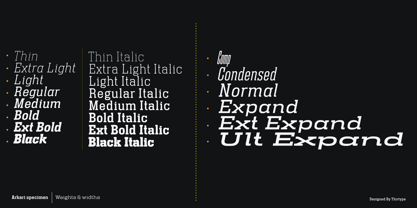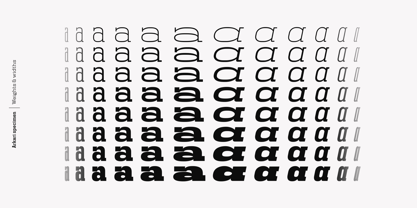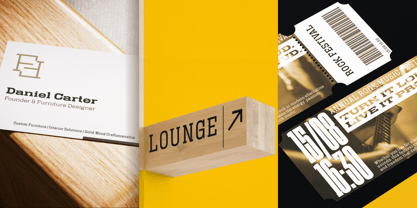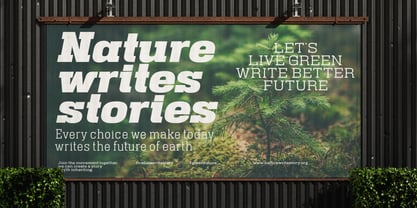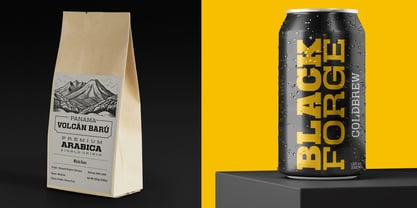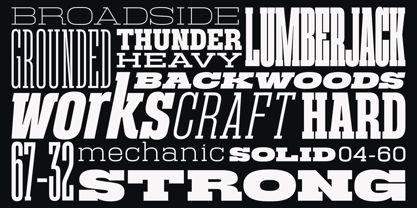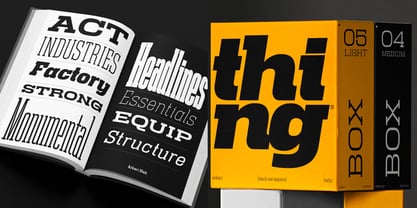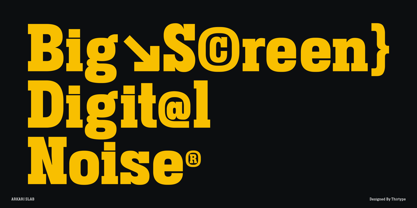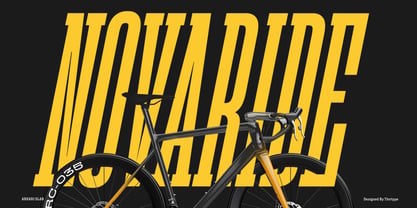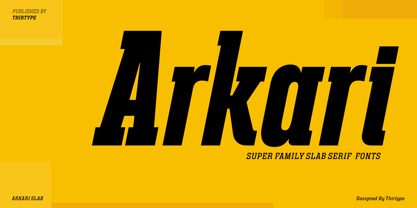
Arkari
by thirtype
The Arkari Font Family was designed by Cucu Supriyadi and published by thirtype. Arkari contains 98 styles and family package options. More about this family
Arkari Slab is a powerful contemporary slab serif superfamily designed to combine structural strength with exceptional versatility. Built with carefully balanced proportions, sturdy slab serifs, and refined details, Arkari Slab delivers outstanding readability across both large display settings and extended text.
Designed for projects that demand confidence and character, Arkari Slab excels in branding, editorial design, magazines, newspapers, packaging, advertising, posters, signage, billboards, architecture, construction, industrial graphics, outdoor brands, sports identities, product labels, corporate identities, websites, user interfaces, and social media campaigns. Whether used for bold headlines, expressive typography, strong visual identities, or functional body text, Arkari Slab adapts effortlessly to a wide range of creative applications. From heritage-inspired packaging and rugged outdoor gear to contemporary editorial layouts and large-scale environmental graphics, Arkari Slab provides the flexibility, consistency, and visual impact needed to build typography that feels both timeless and unmistakably modern.
Designers: Cucu Supriyadi
Foundry: thirtype